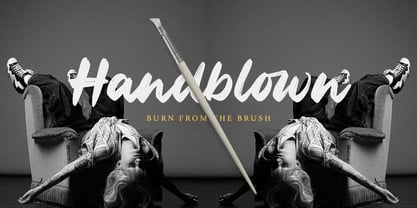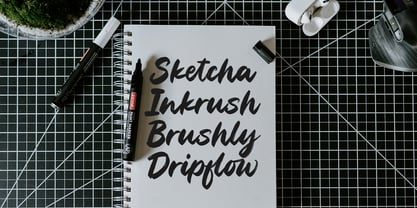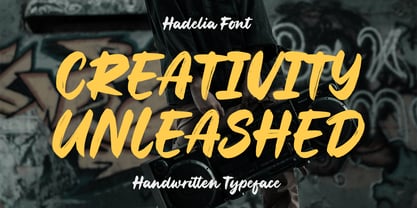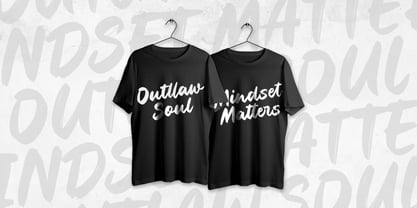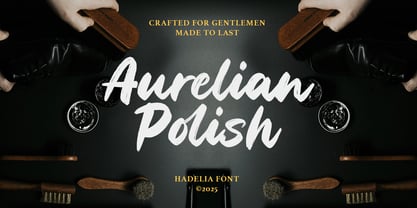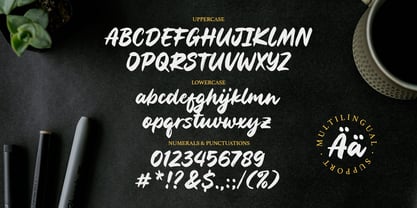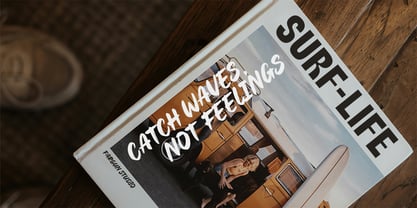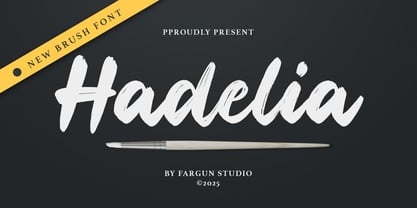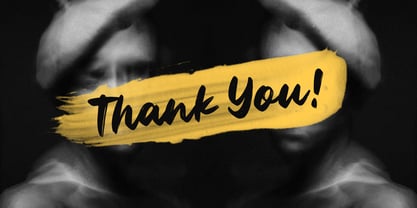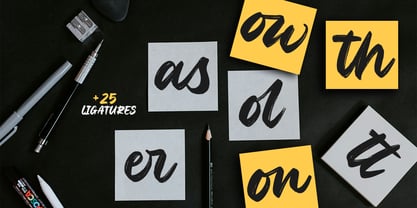
Hadelia
by Fargun Studio
The Hadelia Font Family was designed by Fajar Gunawan and published by Fargun Studio. Hadelia contains 1 styles. More about this family
Hadelia Brush Font
Hadelia is a bold and expressive brush script font that captures the beauty of hand-painted lettering. Crafted with authentic brush strokes, Hadelia brings a natural and dynamic feel to your creative projects. Whether you're working on branding, posters, social media graphics, or packaging designs, this font will give your work a confident, handcrafted look.
Designers: Fajar Gunawan
Foundry: Fargun Studio